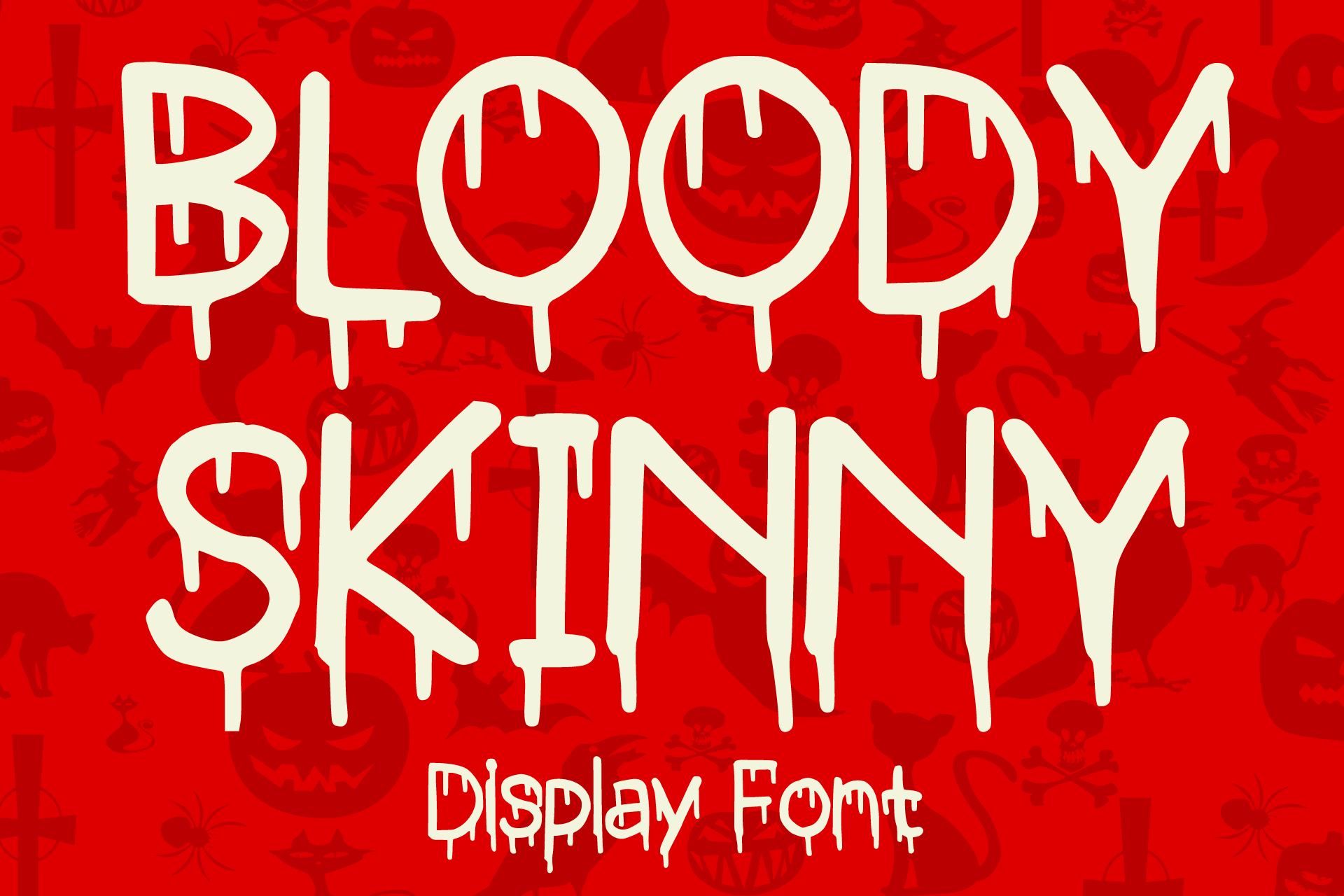
Bloody Skinny Font
Bloody Skinny is a kids friendly blood drips display font! Not only can be used for Halloween theme needs, you can use it too for other things for example graffiti tag or street style art needs. Use it on t-shirts and clothing, for your scary book designs, greeting cards, stickers, posters, banners, or anything that needs a fun touch. Try it to create fabulous designs and feel the fun and cool vibes with it!